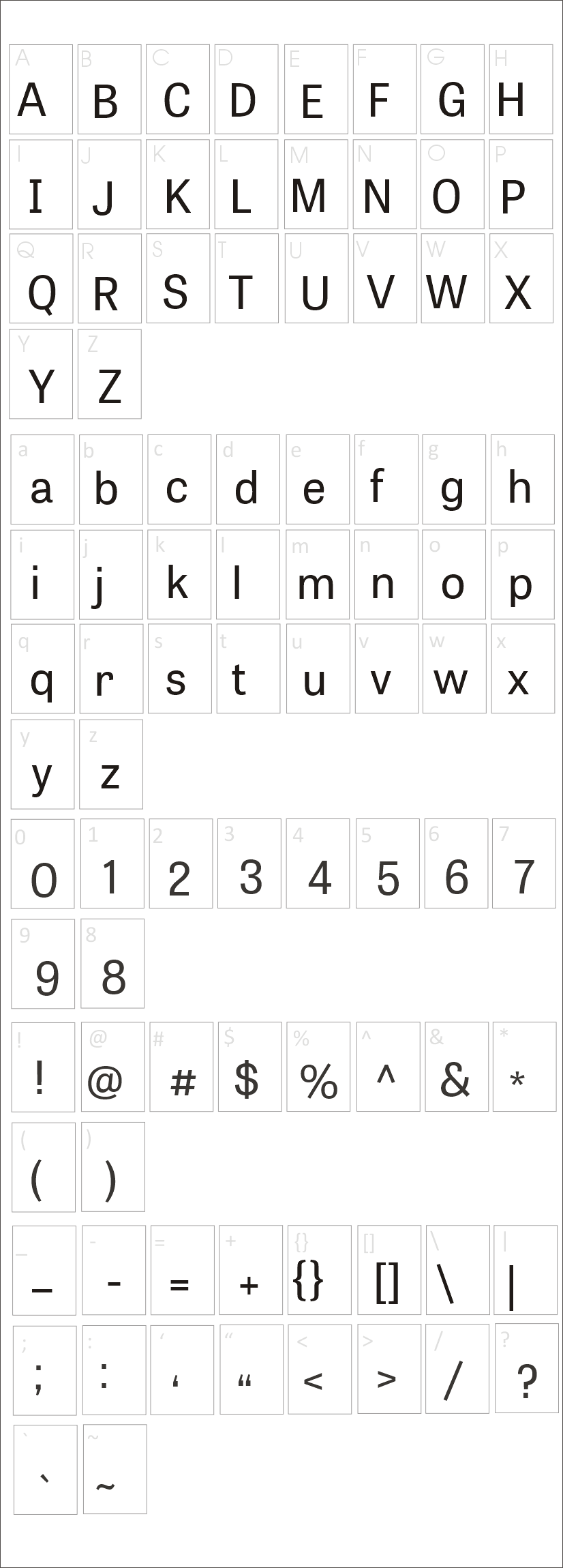
Name | Tablet Gothic Font |
Font Designer: | TypeTogether |
Category: | Sans-serif, Modern, Editorial |
Tablet Gothic Font is a highly adaptable sans-serif typeface designed specifically for editorial use in digital and print media. Created by the design team at TypeTogether, it’s a flexible modern typeface featuring a wide range of styles and weights making it ideal for both headlines and body text. Tablet Gothic is known for its readability making it perfect for tablet screens, mobile devices, and printed publications. Its versatility allows designers to create harmonious layouts with varied typographic needs.
Key Features of Tablet Gothic Font:
- Wide Range of Weights and Styles: Tablet Gothic comes in a variety of weights from thin to bold, with condensed and extended styles making it a great fit for both large headlines and compact body text.
- Designed for Modern Media: Optimized for digital screens and print. Tablet Gothic provides excellent legibility on tablets, smartphones, and other digital devices, as well as traditional print formats.
- Versatility: The font’s design strikes a balance between a clean, modern aesthetic and high readability, making it a great choice for both editorial design and branding projects.
- Strong Character Design: With bold, clear letterforms, Tablet Gothic commands attention, making it a powerful tool for communicating important information quickly and effectively.
Uses for Tablet Gothic Font:
- Editorial Design: Tablet Gothic is ideal for magazines, newspapers, and blogs, offering a range of styles for headlines, subheadings, and body text to create balanced and readable layouts.
- Web and Digital Media: The font’s clarity and legibility on screens make it perfect for websites, apps, and other digital content. It maintains readability across various device resolutions.
- Branding and Corporate Identity: Its professional appearance and flexibility make Tablet Gothic suitable for corporate logos, brochures, and business communication materials.
- Advertising and Posters: The bold, impactful letterforms of Tablet Gothic are excellent for grabbing attention in promotional materials, billboards, and posters.
- Mobile and Tablet Applications: As the name suggests, Tablet Gothic is optimized for readability on tablet devices, making it a perfect choice for user interfaces, mobile apps, and e-books.